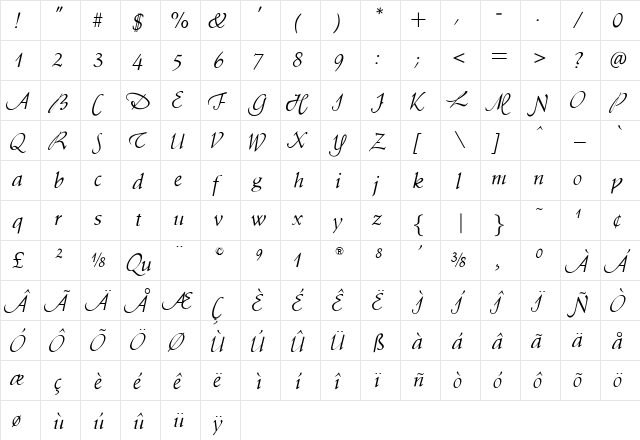
OPTISchneidler-Swash Regular
Design Context for OPTISchneidler-Swash Typeface
OPTISchneidler-Swash brings a calligraphic fluidity to the page — its connecting strokes and expressive curves give it an unmistakably human quality.
Font Pairing: Combine OPTISchneidler-Swash with a simple geometric sans for maximum contrast — the tension between flowing curves and clean structure is a classic typographic pairing.
Pro Tip: Use OPTISchneidler-Swash for short runs of text — names, titles, or taglines. Extended body copy in script faces tires the eye quickly.